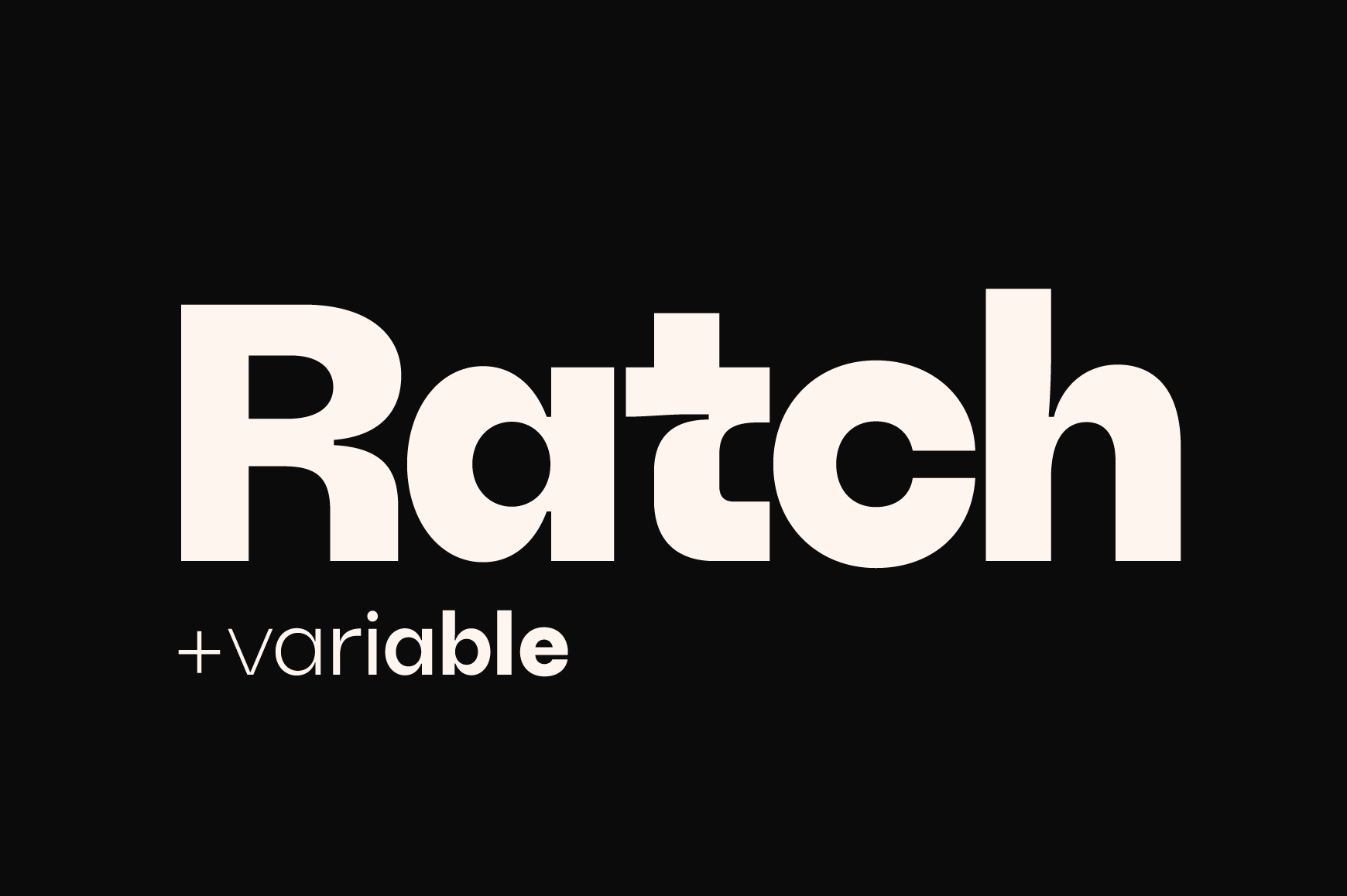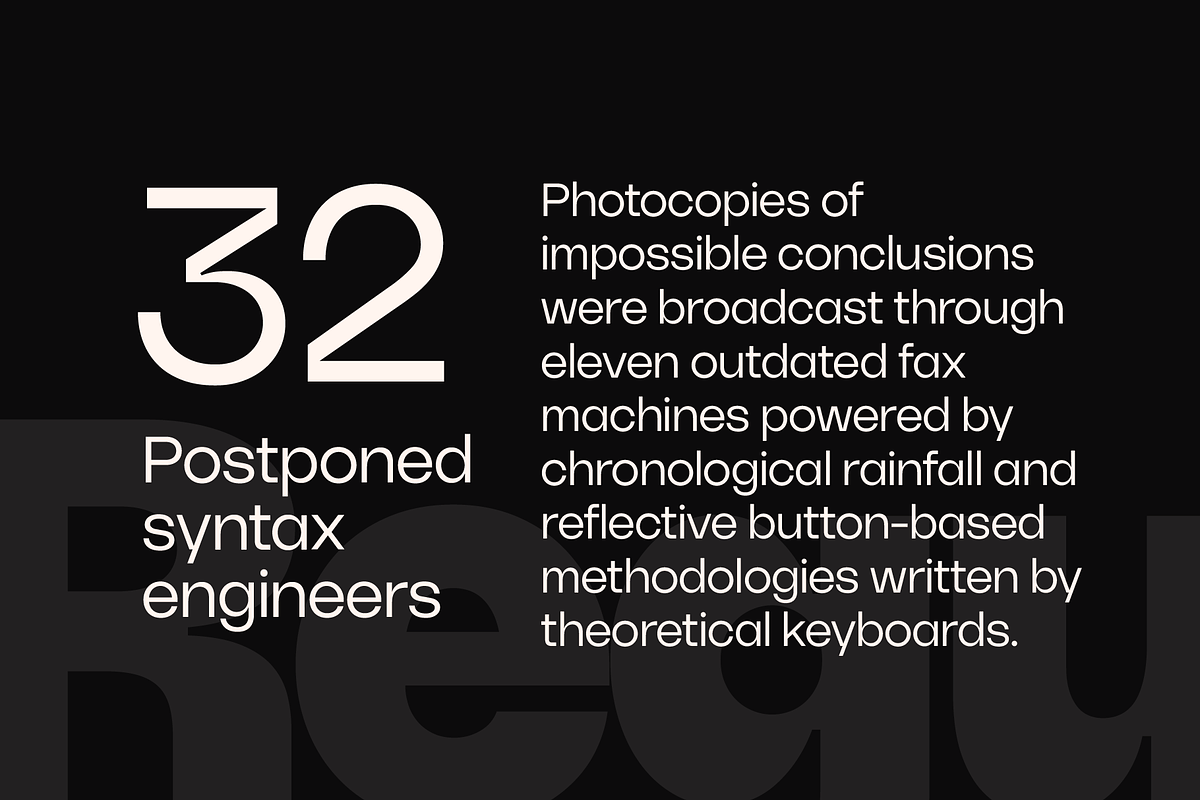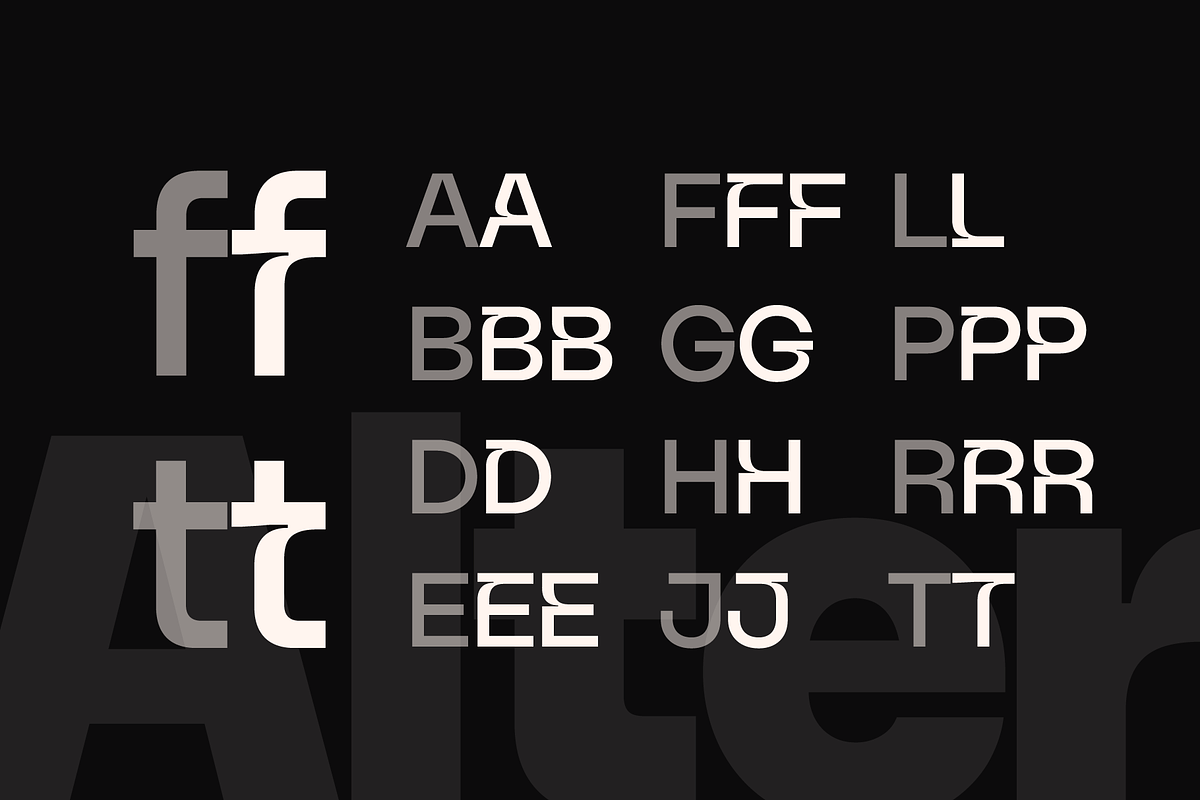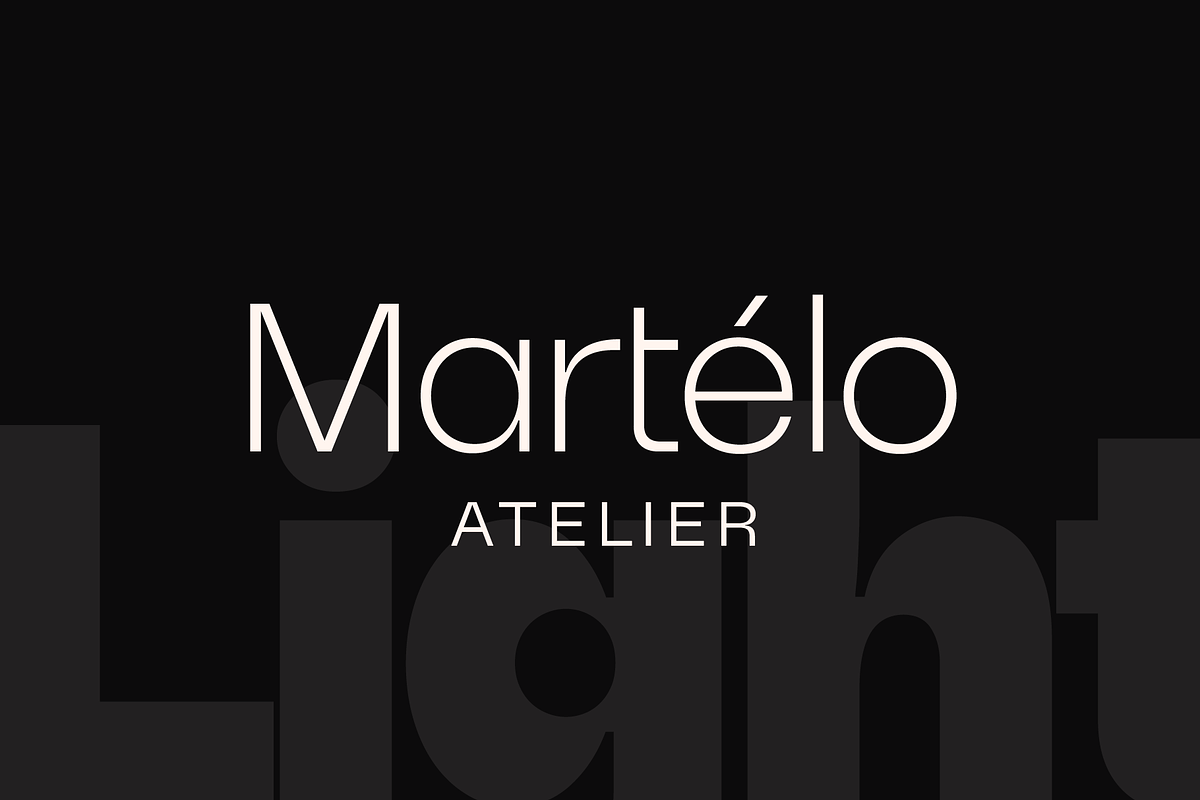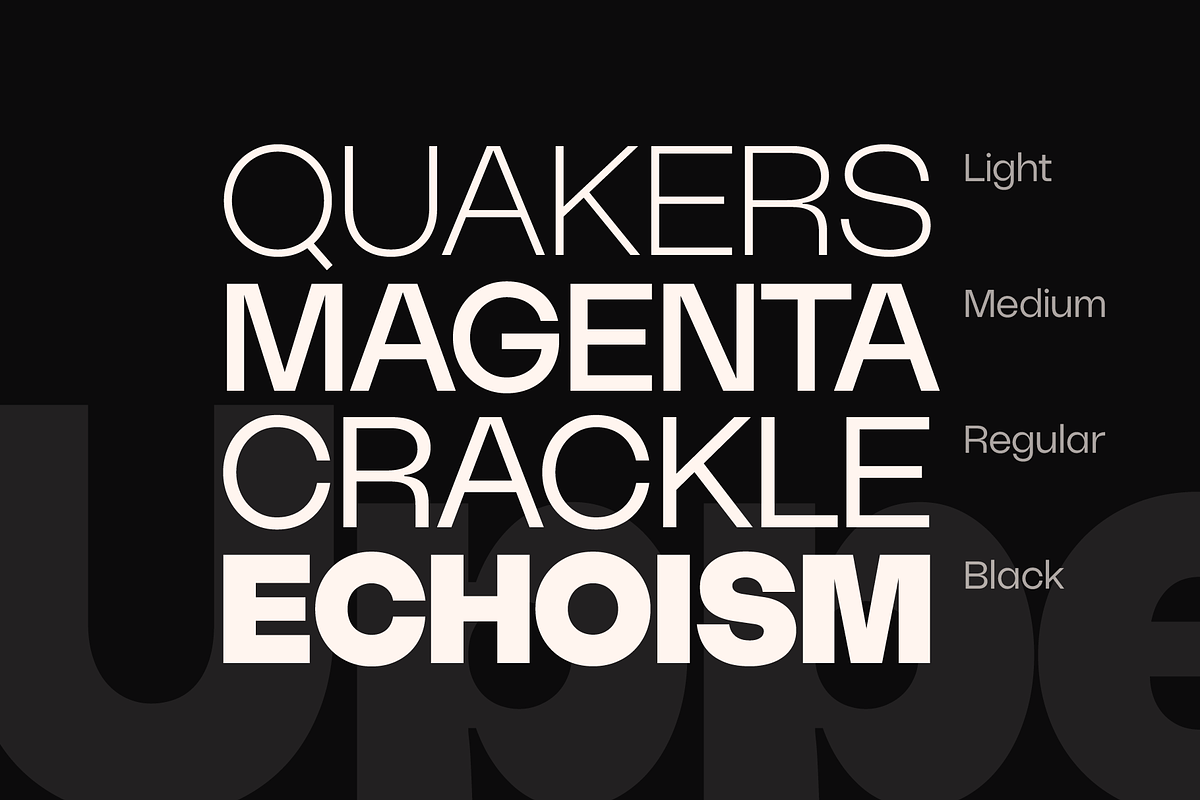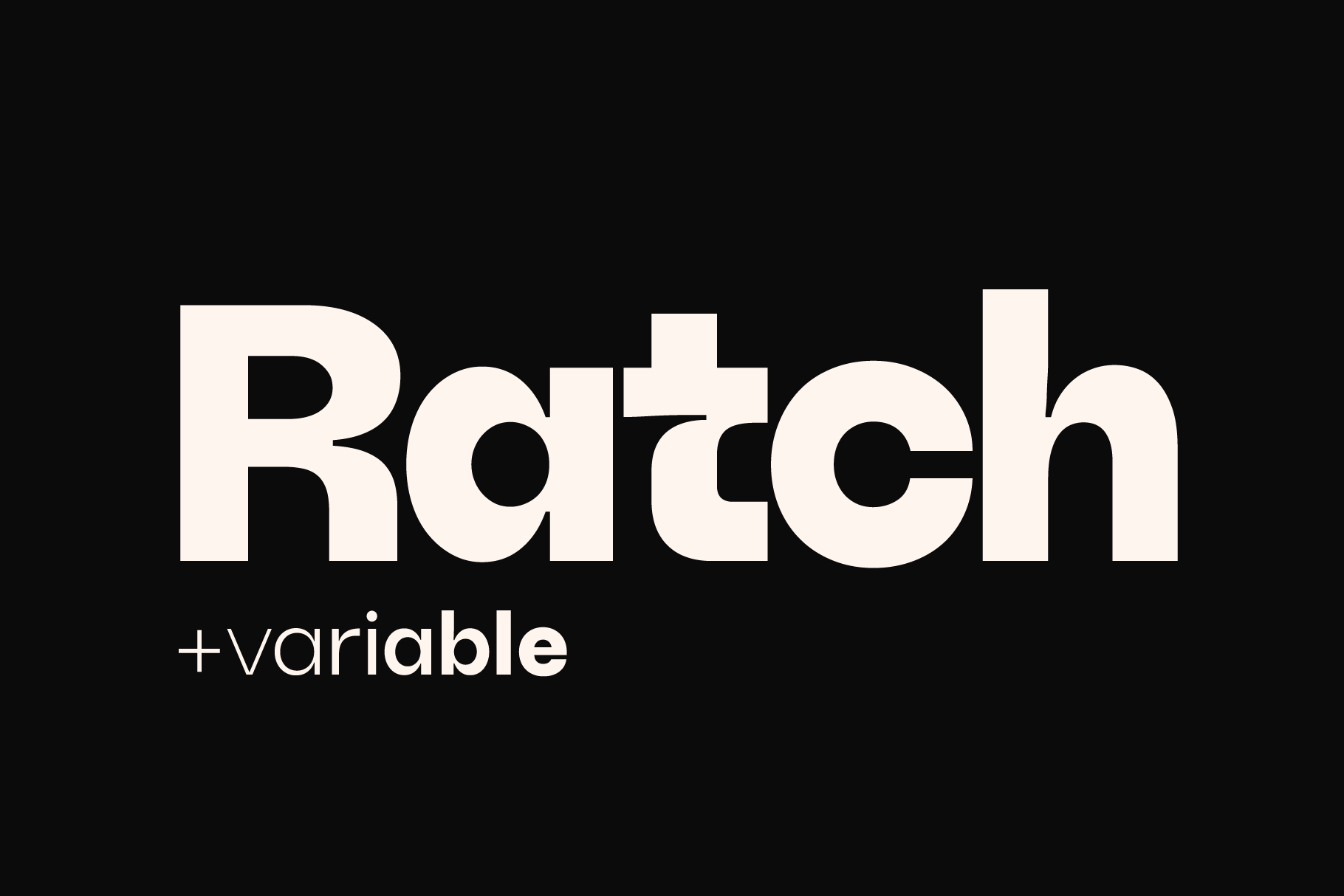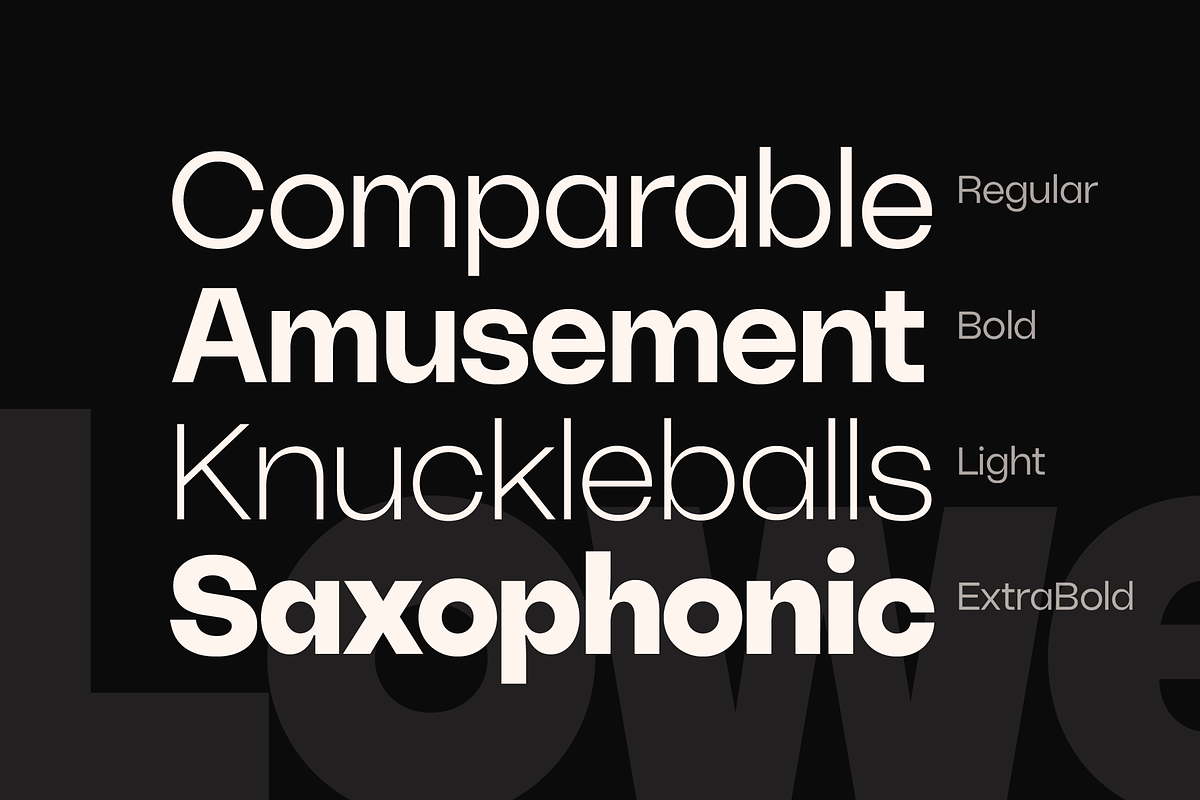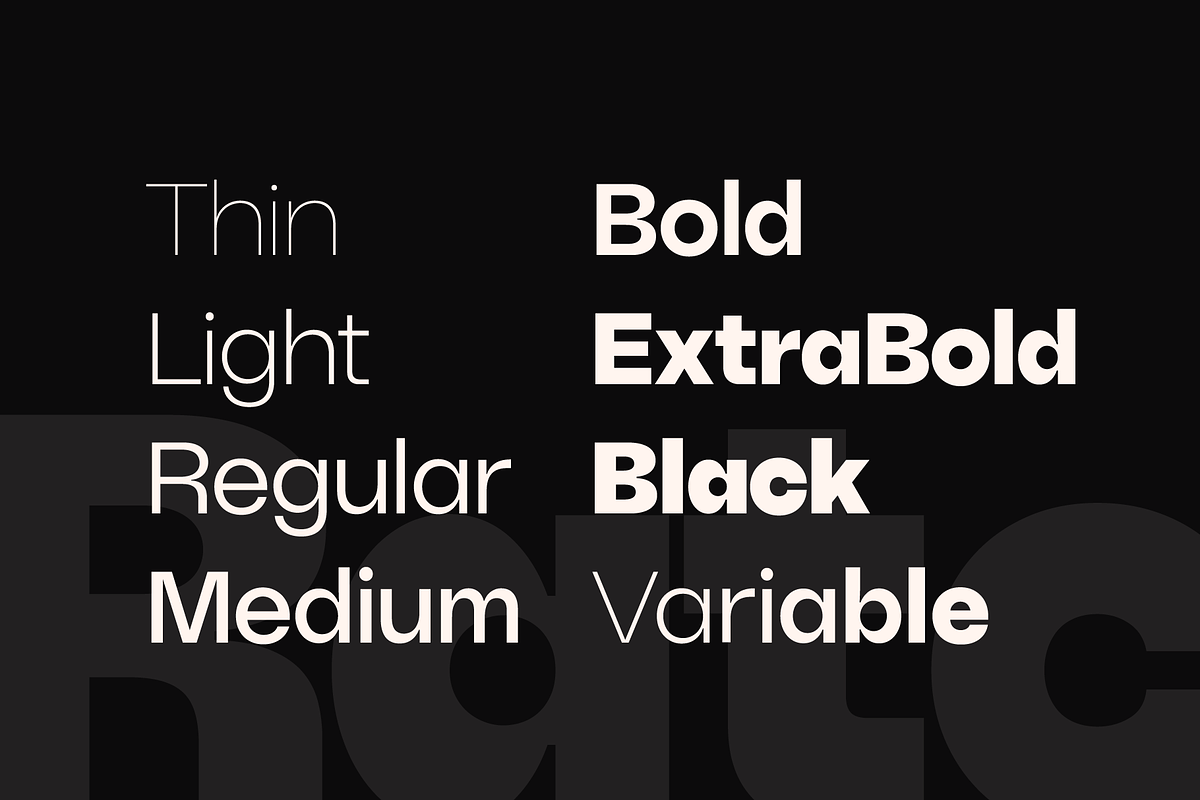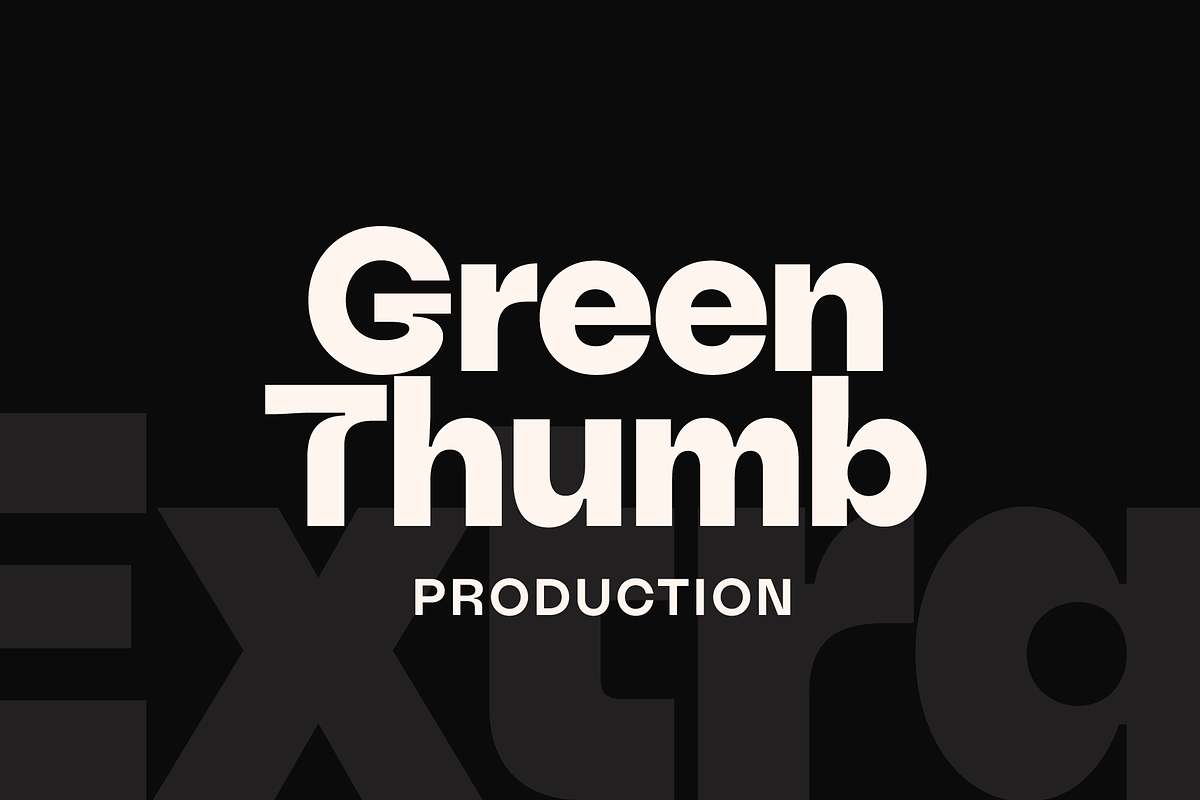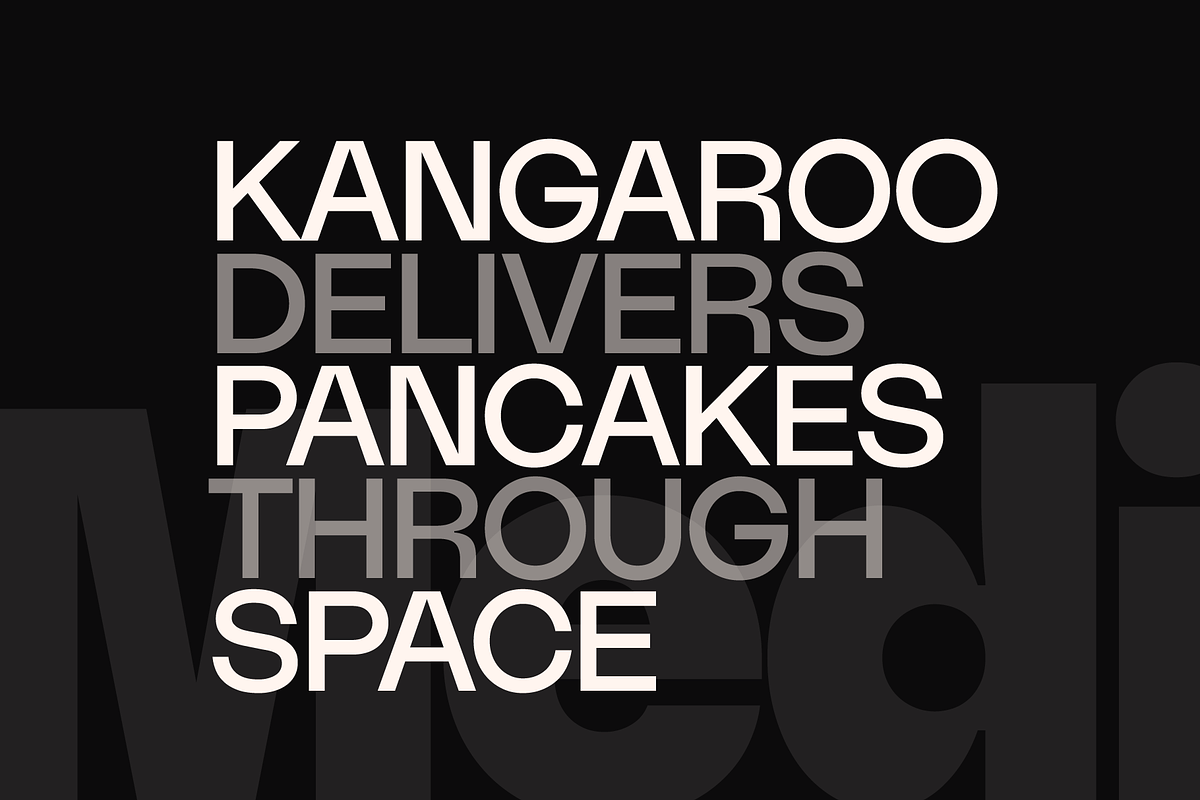
Ratch Font Family
Ratch is a modern geometric grotesk typeface family featuring 7 weights from Thin to Black, along with a fully functional variable font, offering Extended Latin support. Each style includes a set of stylistic alternates designed to highlight and personalize individual letters within your text.
Uppercase and lowercase letters
OpenType alternates
Extended Latin diacritics
Numerals and punctuation
Symbols and miscellaneous glyphs